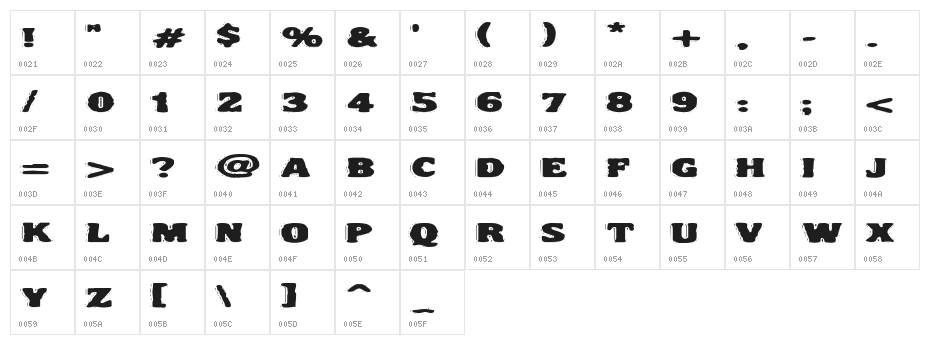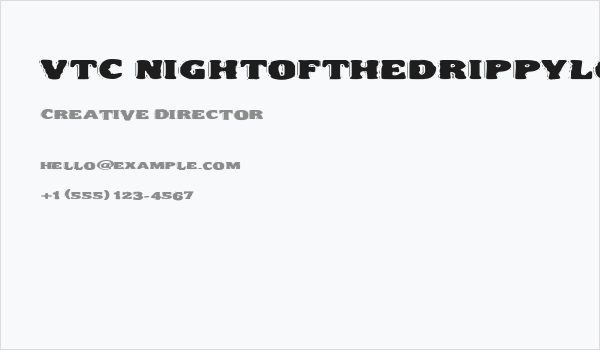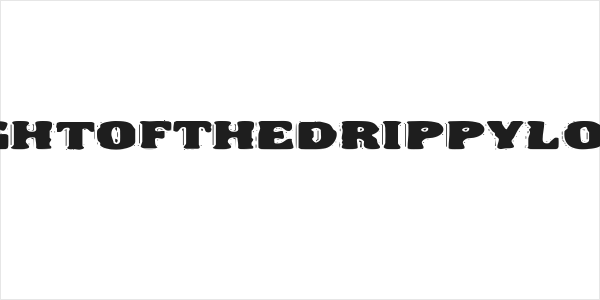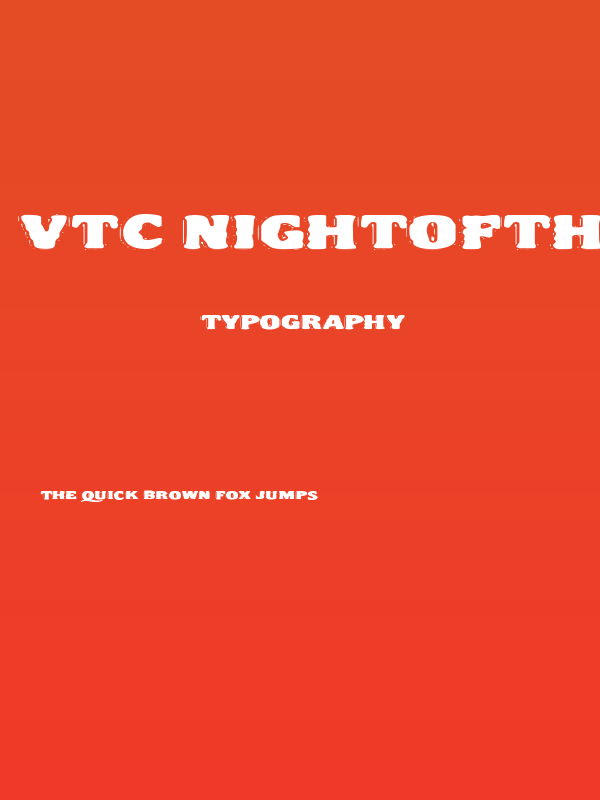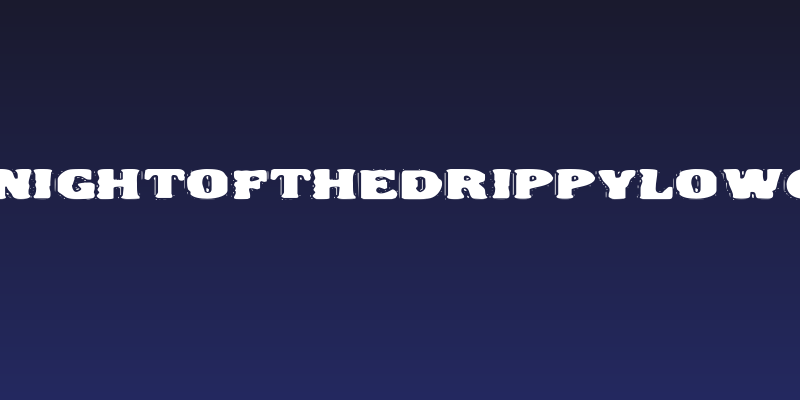
VTC NightOfTheDrippyLowCaps Font
VTC NightOfTheDrippyLowCaps Description
This font features a bold, dramatic style with a dripping effect that gives it a unique, edgy appearance. The characters are heavily weighted, with thick strokes that create a strong visual impact. The dripping elements add a sense of movement and fluidity, making it stand out as a decorative option. The uppercase and lowercase letters maintain a consistent style, with rounded edges and a playful yet intense look. Numbers and special characters are designed with the same dripping motif, ensuring a cohesive aesthetic throughout. This font is perfect for projects that require a bold statement or a touch of creativity.